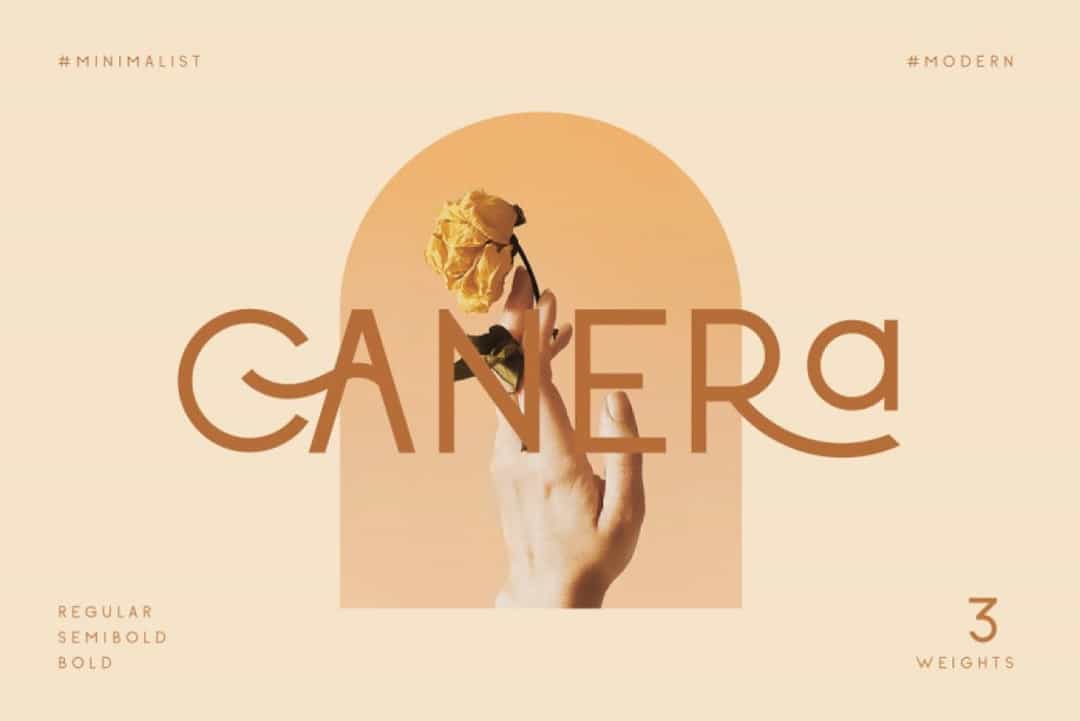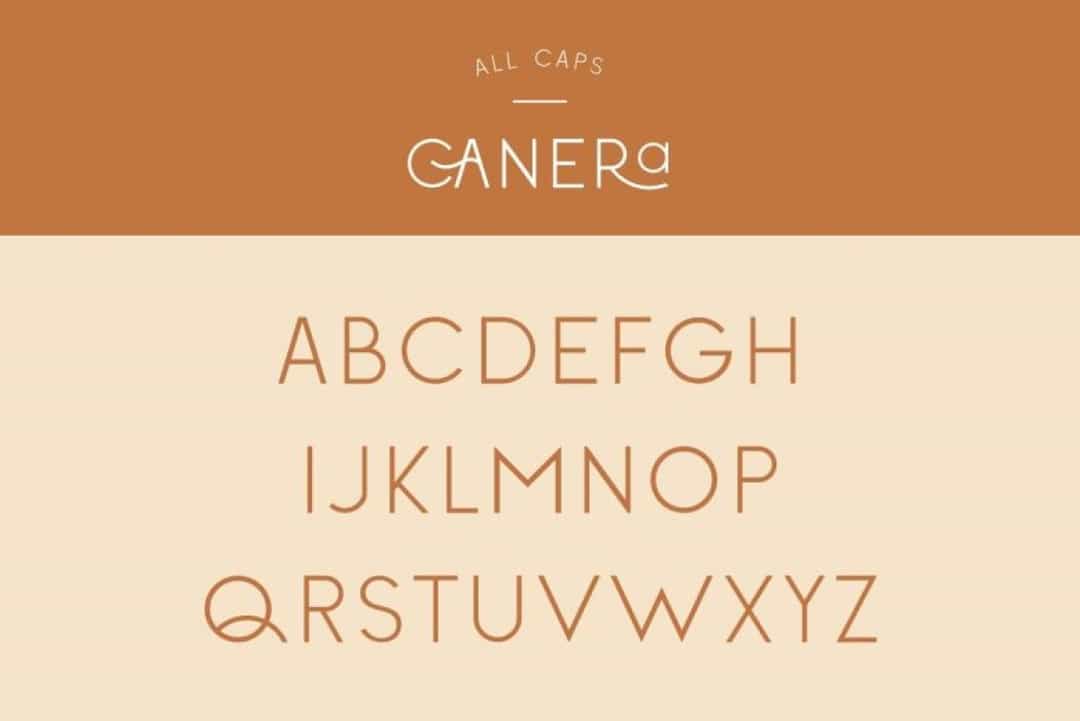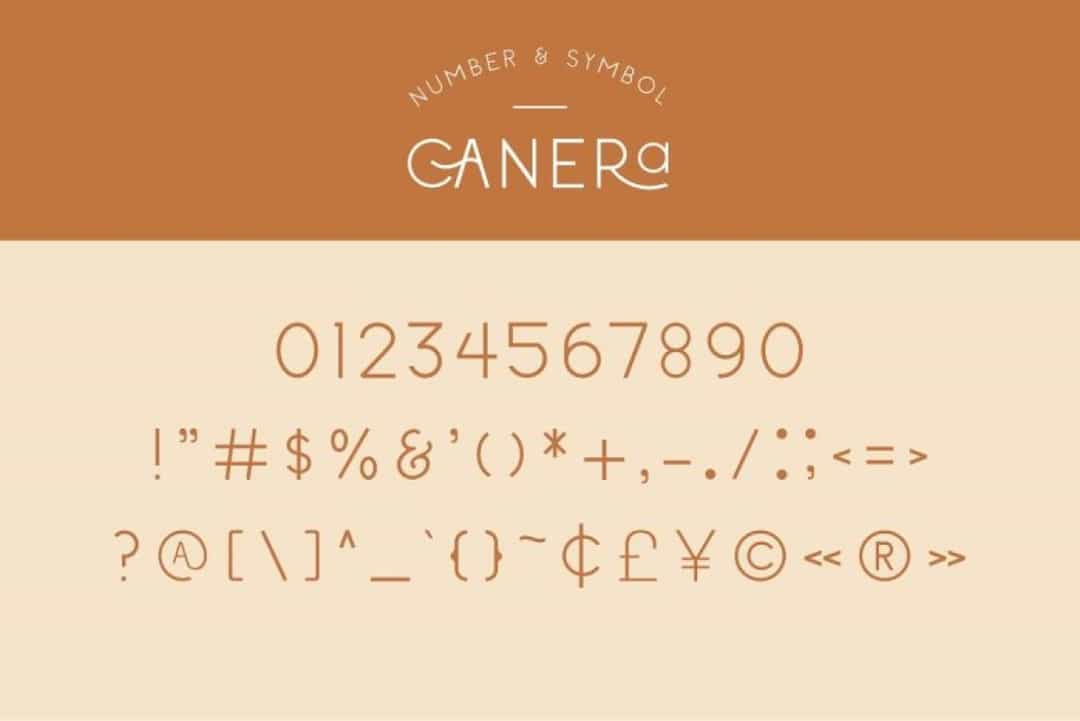
Canera Font is an elegant yet basic typeface, featuring beautiful ligatures and multiple alternative glyph ornamentation options suited for multilingual languages. This font’s incredible versatility makes it suitable for use both small and large sizes alike.